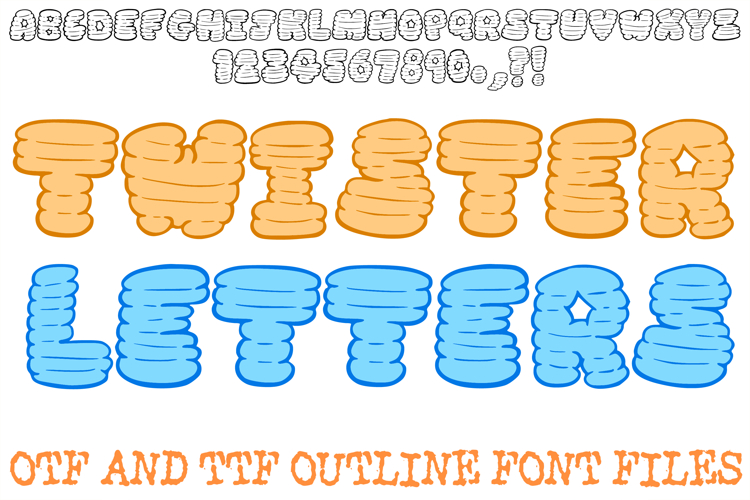
Twister Letters Font Cartoon Puffy Bouncy ABC OTF Type
Twister Letters is a dynamic, high-energy display font that brings a sense of motion and tactile depth to digital design. Characterized by its unique "coiled" or "stacked" construction, each letterform is built from a series of rhythmic, horizontal tiers that mimic the swirling energy of a vortex or the soft, layered ridges of a classic treat. It is a standout resource for designers focusing on quirky branding, avant-garde editorial work, high-impact social media graphics, and creative children’s products.
Crafted with a bold, hand-drawn outline and an intricate internal texture, Twister Letters offers a 3D aesthetic that feels both playful and sophisticated. Whether you are creating a vibrant logo for a boutique candy shop or developing eye-catching headers for a modern lifestyle blog, this font’s kinetic silhouette ensures your typography is anything but static.
Why Your Designs Will Stand Out
Kinetic "Stacked" Aesthetic: The horizontal ribbing creates an illusion of spinning motion, making it perfect for headers that need to feel "alive" and energetic.
Tactile 3D Detail: The built-in tiered shading provides immediate depth without the need for extra effects, saving time for designers during the creative process.
Whimsical Line Quality: The slightly irregular, hand-inked coils give the typeface a charming, human touch that contrasts beautifully with flat, geometric layouts.
Optimized for Unique Merchandise: The bold, clean outlines are designed for crisp rendering on apparel, stickers, and physical products, providing a professional finish across all media.